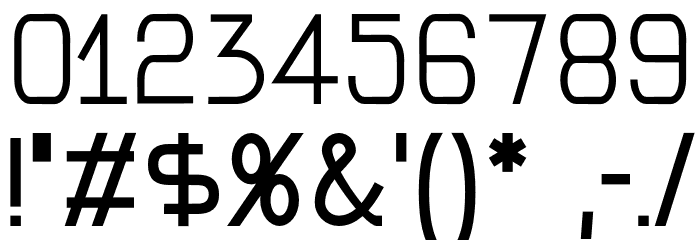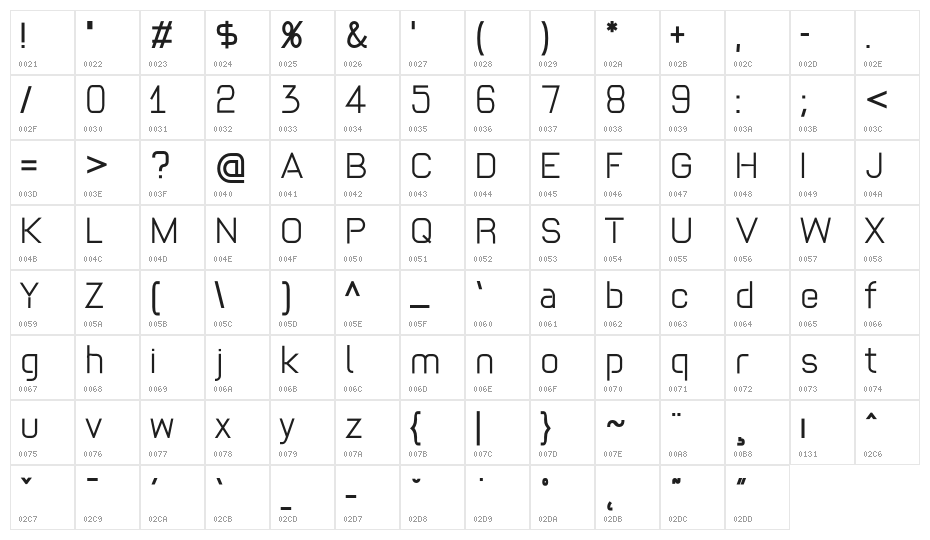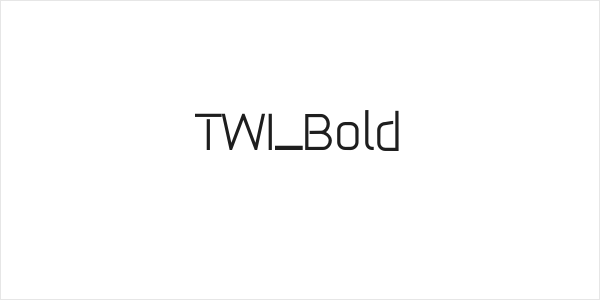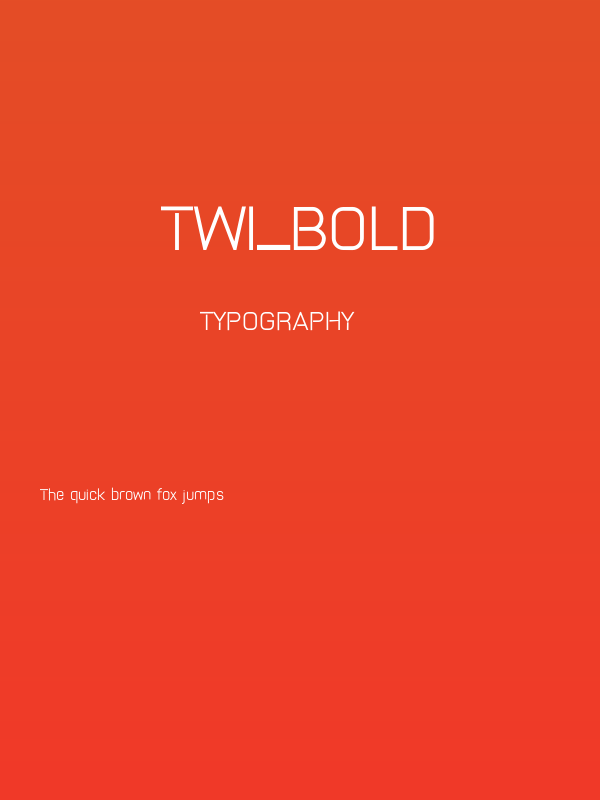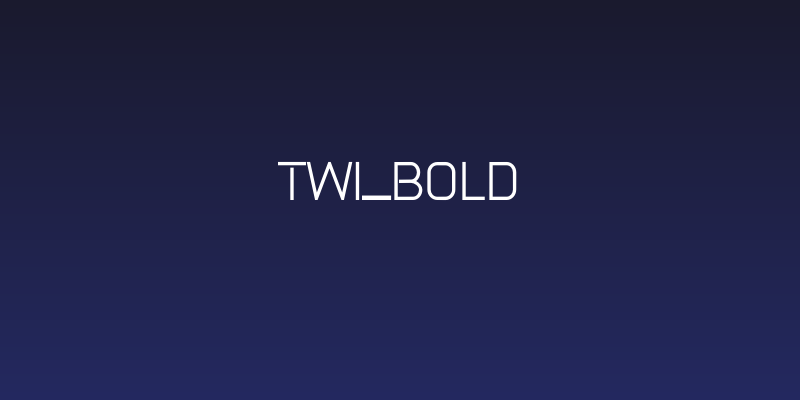
TWI_Bold Font
TWI_Bold Description
This font features a clean and modern sans-serif style with a geometric structure. The characters are uniform in width, providing a balanced and harmonious appearance. The uppercase and lowercase letters are well-proportioned, with a slight curvature that adds a touch of elegance. The numerals are clear and easy to read, making them suitable for various applications. Special characters are included, maintaining the font's overall aesthetic. The design is versatile, making it suitable for both digital and print media.
| Proposed Projects | Ideal for branding, web design, corporate materials, and editorial layouts. |